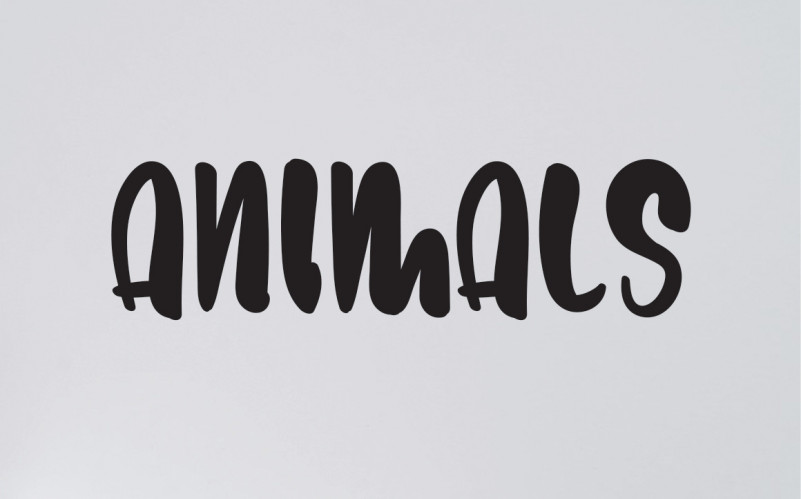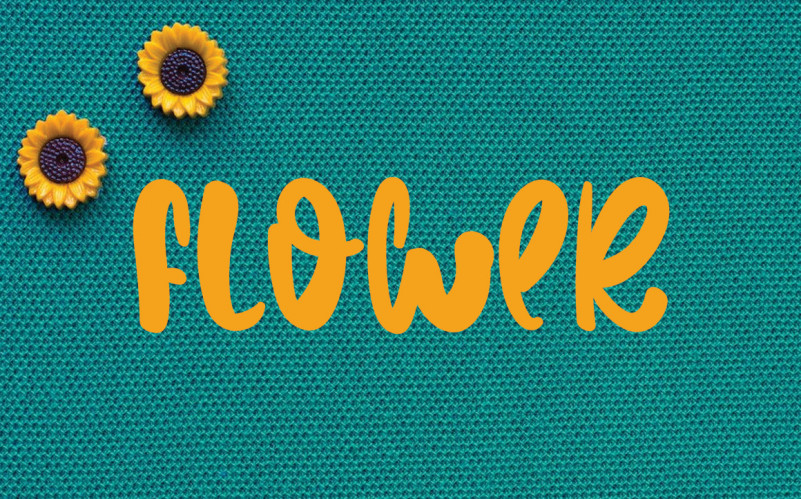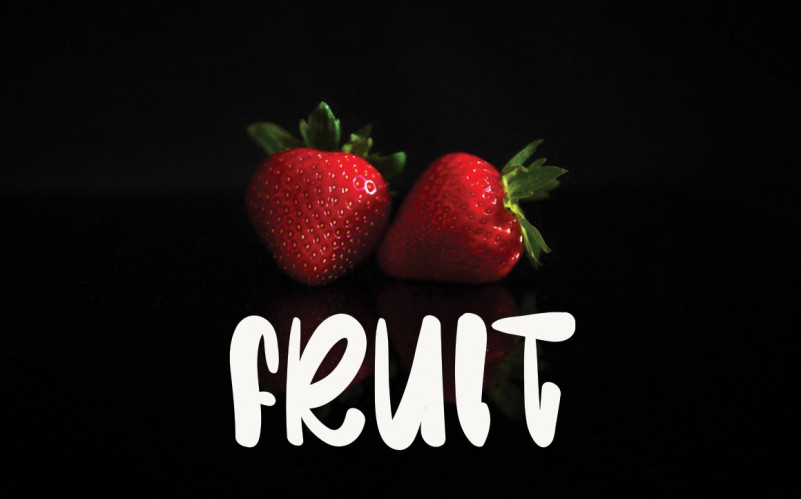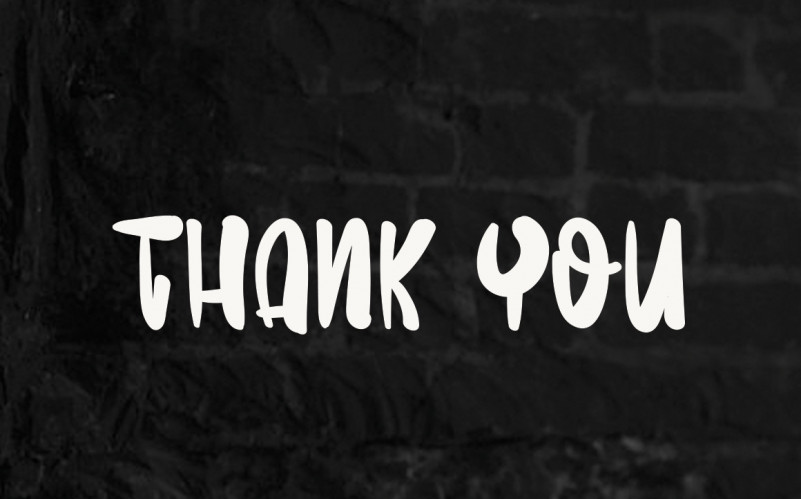
Happy July Font is a unique, fun and friendly handwritten font. Whether you’re looking for a font for Instagram or a calligraphy script for a DIY project, this font will turn any creative idea into a true work of art!